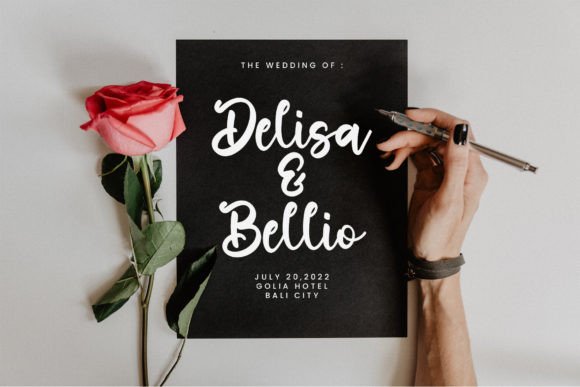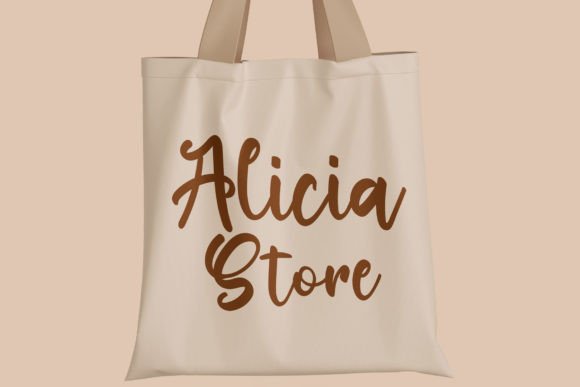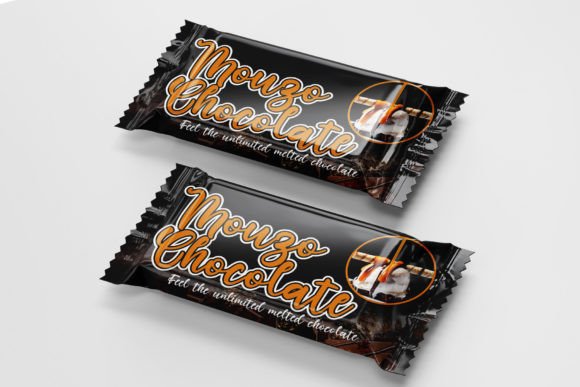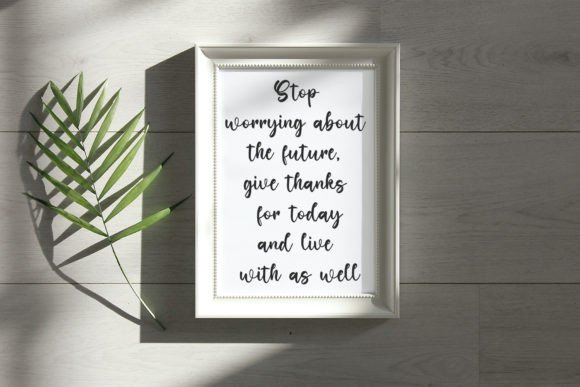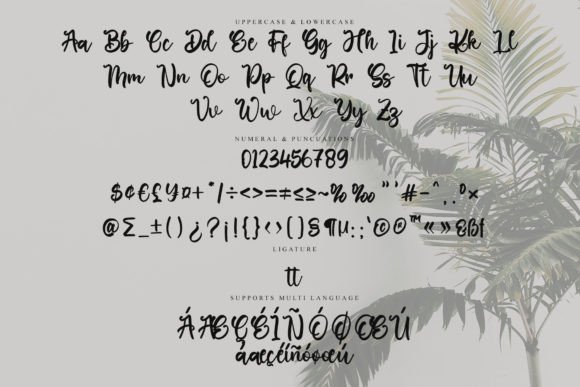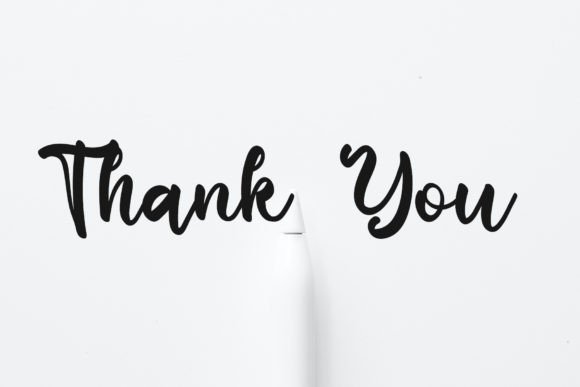
Introducing Device Font: Elevate Your Designs with Elegant Script Typography
In the world of typography, a well-crafted font can make all the difference in elevating your design projects from ordinary to extraordinary. For designers and crafters seeking a touch of sophistication and elegance, Device font is an exceptional choice. This beautiful script font boasts a contemporary atmosphere, impeccable form, and a timeless classic calligraphy-inspired aesthetic that will undoubtedly enhance the beauty of your creations.
The Characteristics of Device Font
Device font strikes the perfect balance between style and readability, making it an excellent addition to any design project. Its key characteristics include:
- Elegant Script Style: Inspired by timeless classic calligraphy, Device font exudes sophistication and refinement.
- Contemporary Atmosphere: With its modern twist, this font is perfect for designers looking to add a touch of current style to their work.
- Impeccable Form: The font’s carefully crafted design ensures that it is not too thin and not too thick, making it highly readable and visually appealing.
What Makes Device Font Stand Out?
One of the standout features of Device font is its PUA (Private Use Area) encoding. This means that users can easily access all glyphs and swashes, providing a wide range of creative possibilities. The PUA encoding allows for:
- Ease of Use: Access all glyphs and swashes with ease, making it simple to incorporate into your design workflow.
- Increased Creativity: With a wide range of glyphs and swashes at your disposal, you can experiment with different styles and effects to enhance your designs.
Device font is an excellent choice for designers and crafters working on a variety of projects, including:
- Logos and Branding: Add a touch of elegance and sophistication to your logos and branding materials.
- Invitations and Stationery: Create beautiful invitations, greeting cards, and stationery with a personal touch.
- Packaging and Product Design: Elevate your packaging and product design with a stylish and modern font.
- Digital and Print Media: Use Device font in your digital and print media projects, such as brochures, flyers, and social media graphics.
Tips for Using Device Font Effectively
To get the most out of Device font, consider the following tips:
- Pair with Complementary Fonts: Combine Device font with complementary fonts to create a harmonious and visually appealing design.
- Experiment with Swashes and Glyphs: Take advantage of the font’s PUA encoding to experiment with different swashes and glyphs, adding a unique touch to your designs.
- Adjust Font Size and Style: Don’t be afraid to adjust the font size and style to suit your design needs, ensuring that Device font complements your overall aesthetic.
Device font is an exceptional addition to any designer’s or crafter’s toolkit. With its elegant script style, contemporary atmosphere, and impeccable form, this font is sure to elevate your design projects and add a touch of sophistication. Whether you’re working on logos, invitations, packaging, or digital media, Device font is an excellent choice. Take advantage of its PUA encoding and experiment with the wide range of glyphs and swashes to make your designs truly unique.